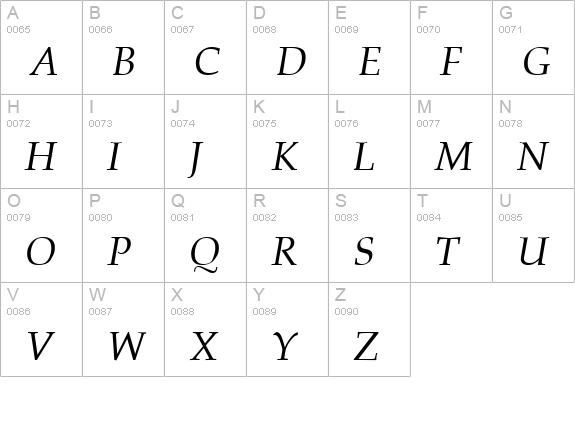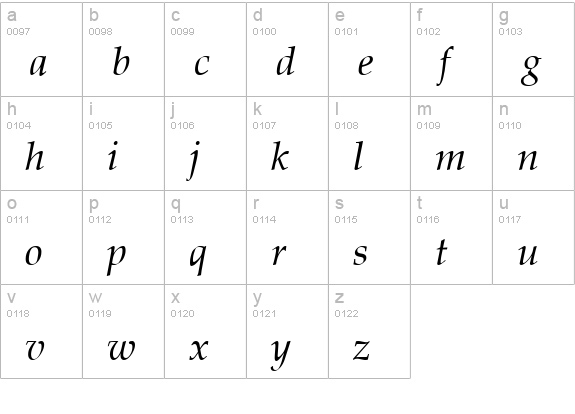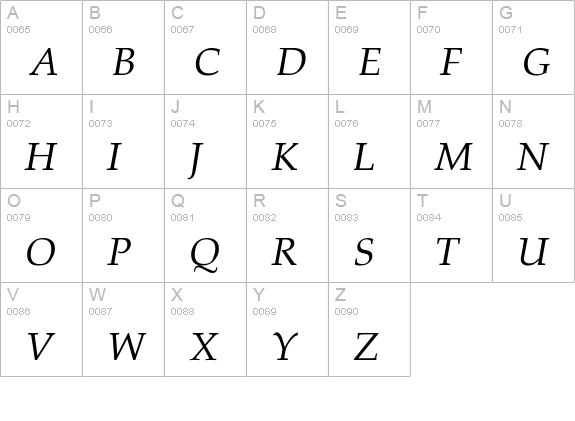
Palatia Italic Font Details
Palatia Italic is a distinctive, italic variant in the Palatia typeface family \xE2\x80\x94 well suited to design and typography projects.
Palatia Italic font is a stunning typeface that effortlessly combines elegance with a touch of modernity. Its gracefully slanted letters exude sophistication and charm, making it the perfect choice for projects that require a refined and stylish look. With its clean lines and beautifully crafted curves, Palatia Italic font captures attention and adds a touch of sophistication to any design. Whether used for headlines, logos, or body text, this font conveys a sense of professionalism and class. One of the best things about Palatia Italic font is that it is available for free download at FontsMarket.com. This means that anyone can access this remarkable font without having to spend a dime. Its availability for free makes it a great choice for designers, students, and anyone looking to add a touch of elegance to their projects without breaking the bank. Palatia Italic font's versatility is another aspect that sets it apart. It is equally suitable for both print and digital designs, making it a go-to choice for various applications. Whether you are designing a magazine layout, creating a website, or working on a branding project, Palatia Italic font will provide the perfect balance between style and readability. The attention to detail in Palatia Italic font is evident in every letterform. Each character is meticulously crafted, ensuring consistent and visually pleasing results. The smooth and flowing curves give the font a sense of movement and grace, adding to its overall appeal. In conclusion, Palatia Italic font is a timeless typeface that effortlessly combines elegance and modernity. Its freely available download at FontsMarket.com makes it accessible to all, allowing designers to add a touch of sophistication to their projects without any cost. With its versatility and attention to detail, Palatia Italic font is sure to elevate any design and leave a lasting impression.